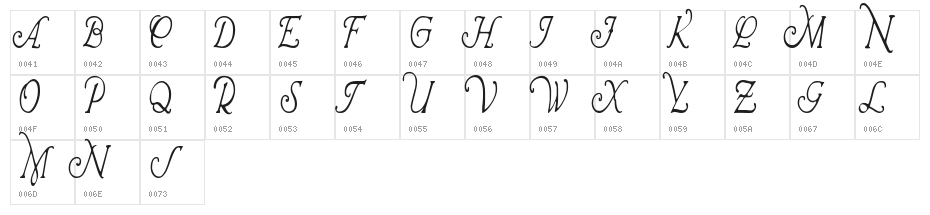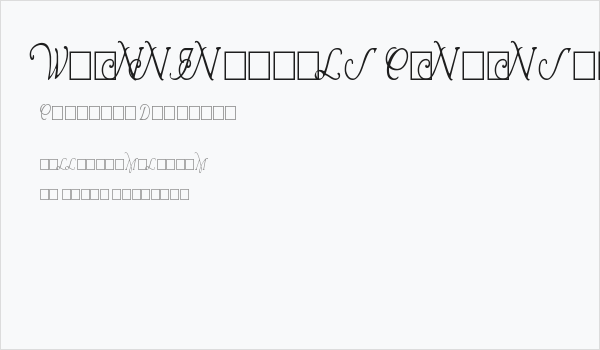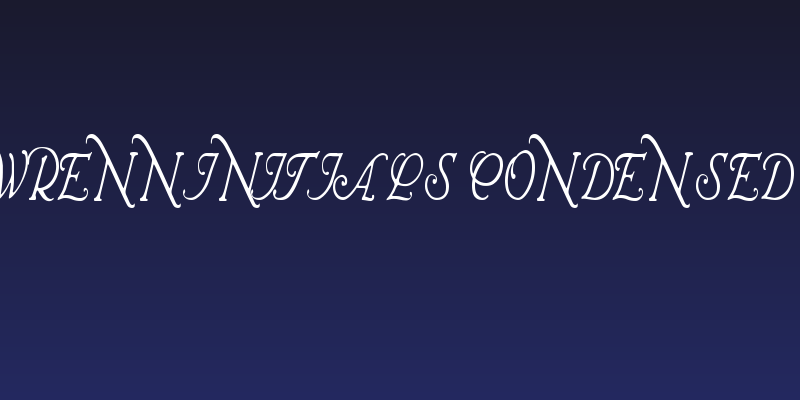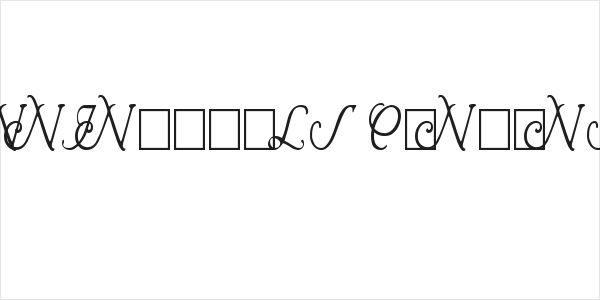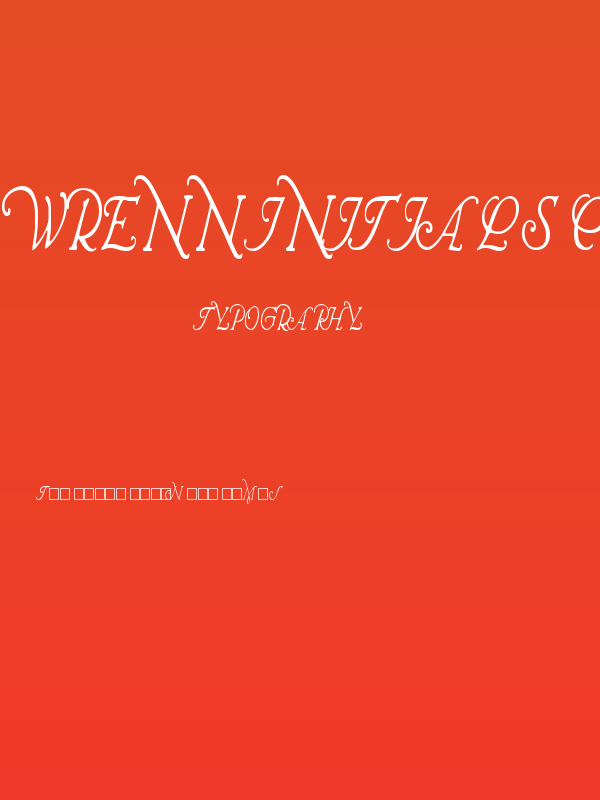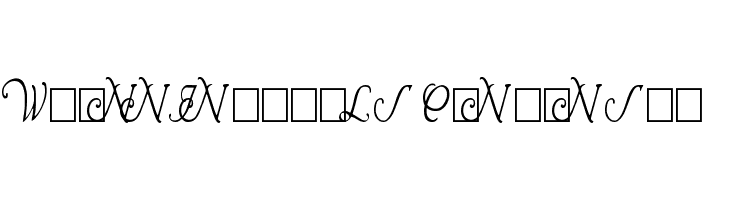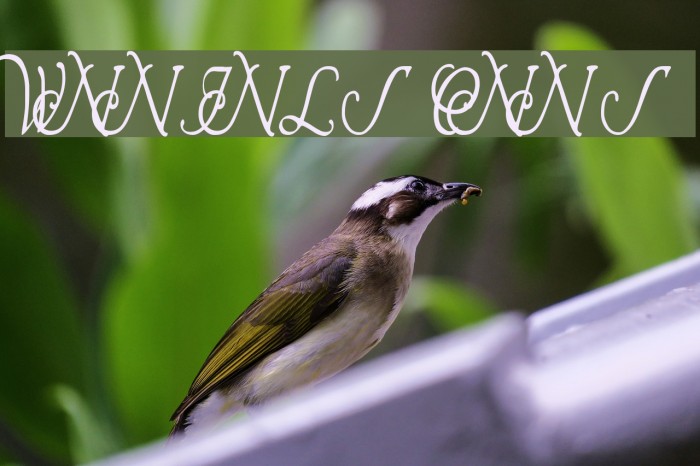
Wrenn Initials Condensed Font
Wrenn Initials Condensed Description
This font features an elegant and sophisticated script style with a condensed form. The uppercase letters are ornate, with flowing lines and intricate curves that give a sense of formality and grace. The strokes are consistent in width, providing a uniform appearance across the alphabet. The font's design is reminiscent of calligraphic handwriting, making it suitable for decorative purposes. The condensed nature allows for efficient use of space without sacrificing readability. The overall aesthetic is both classic and refined, ideal for projects that require a touch of elegance.
| Categories | Script |
| Width | Condensed |
| Overall Style | Classic |
| Use Case | Logos, Headlines, Invitations |
| Proposed Projects | Ideal for wedding invitations, formal event programs, elegant branding, and decorative headings. |